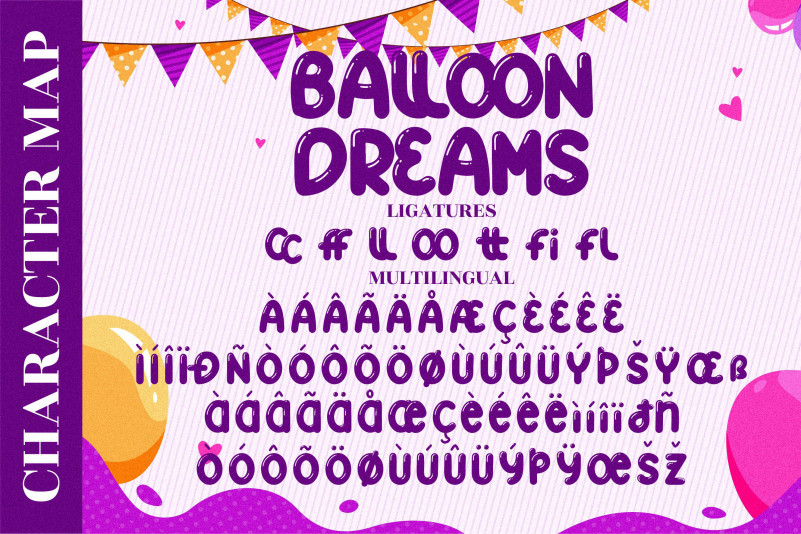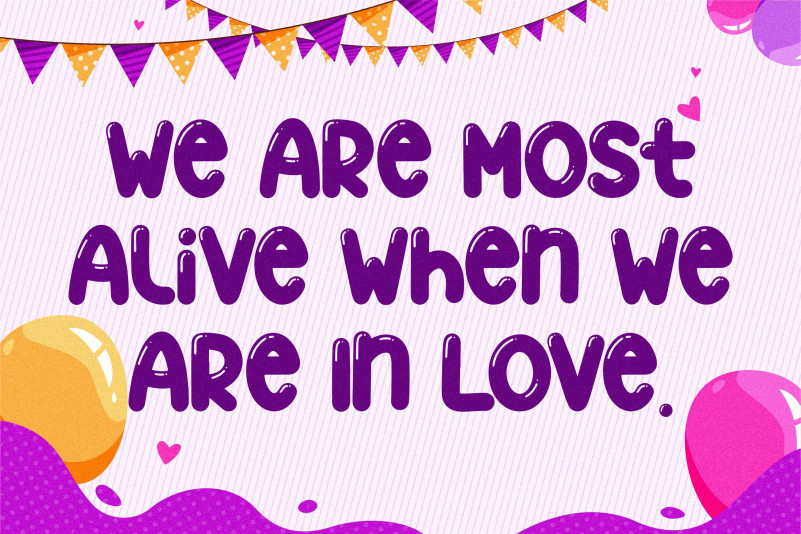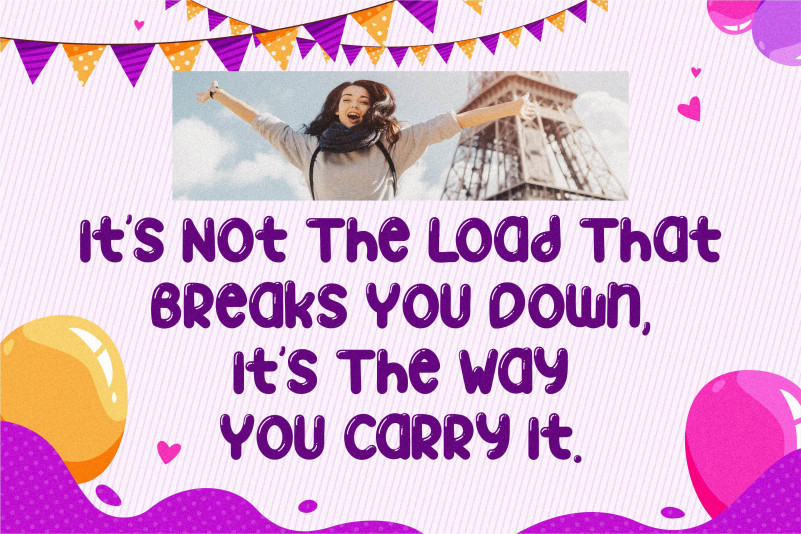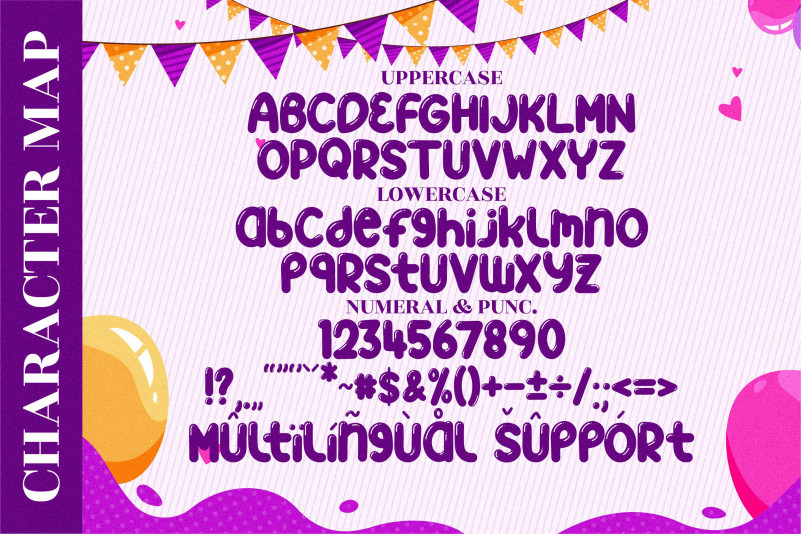
BALLON DREAMS Font
BALLON DREAMS Display Font
This is a cool, bubbly and fun display font. It embodies playfulness and authenticity and is the perfect choice for any children activity or school project.